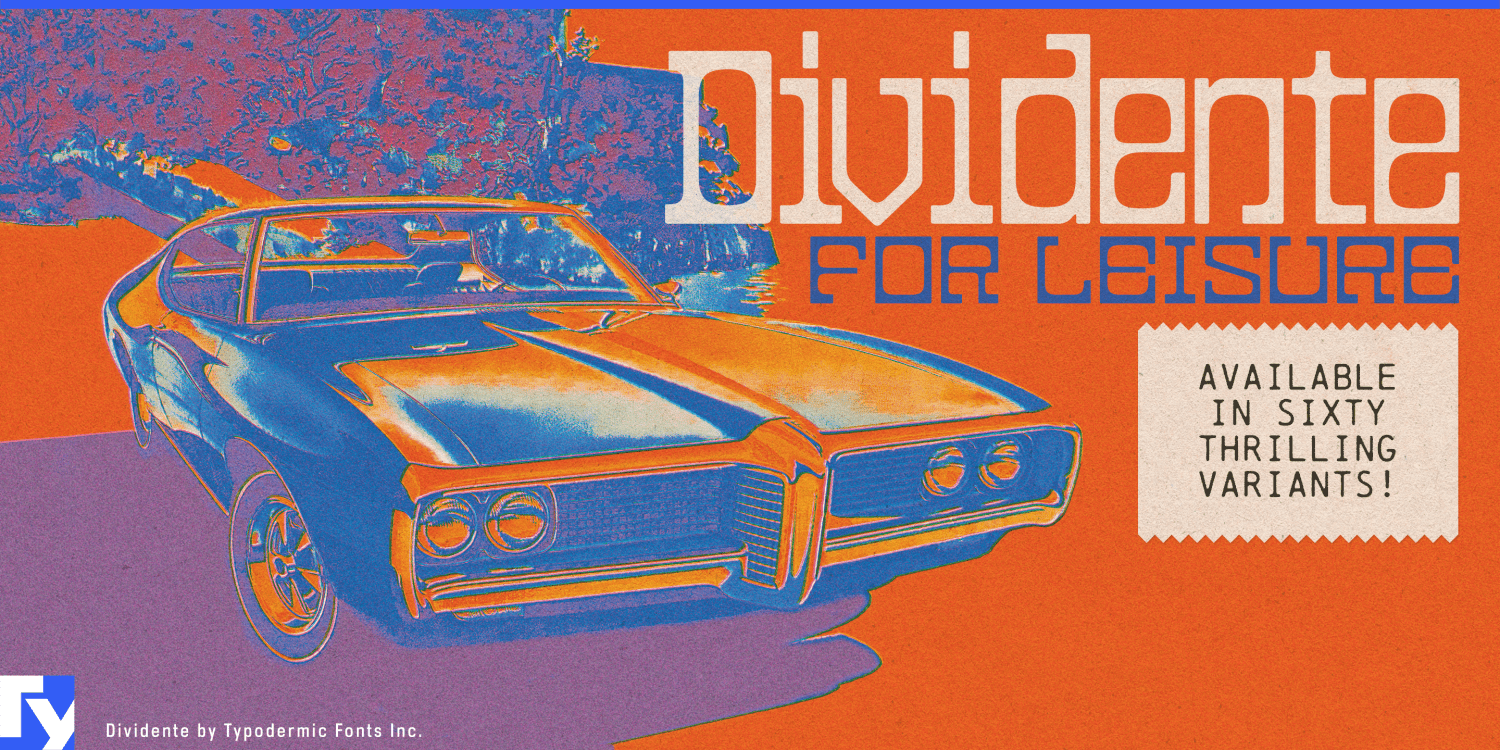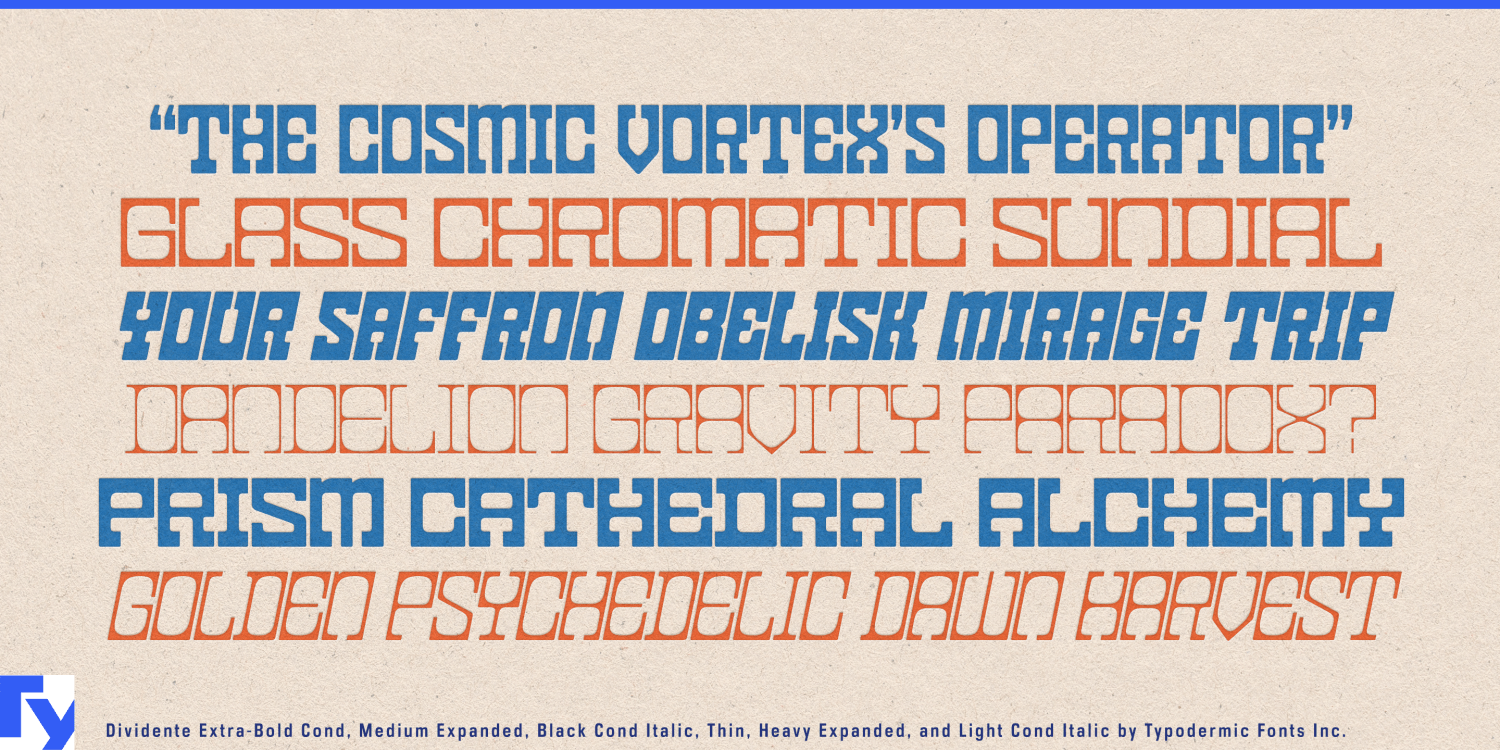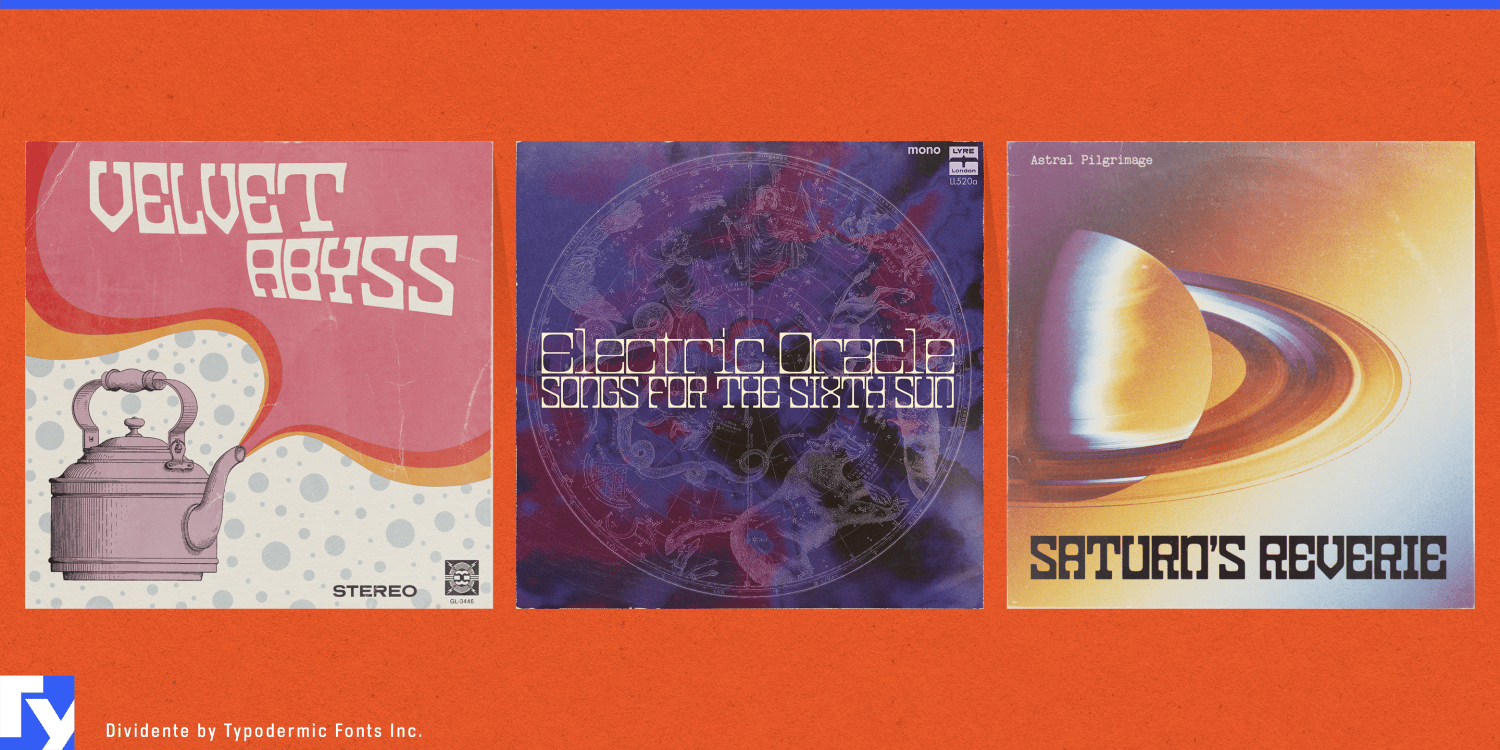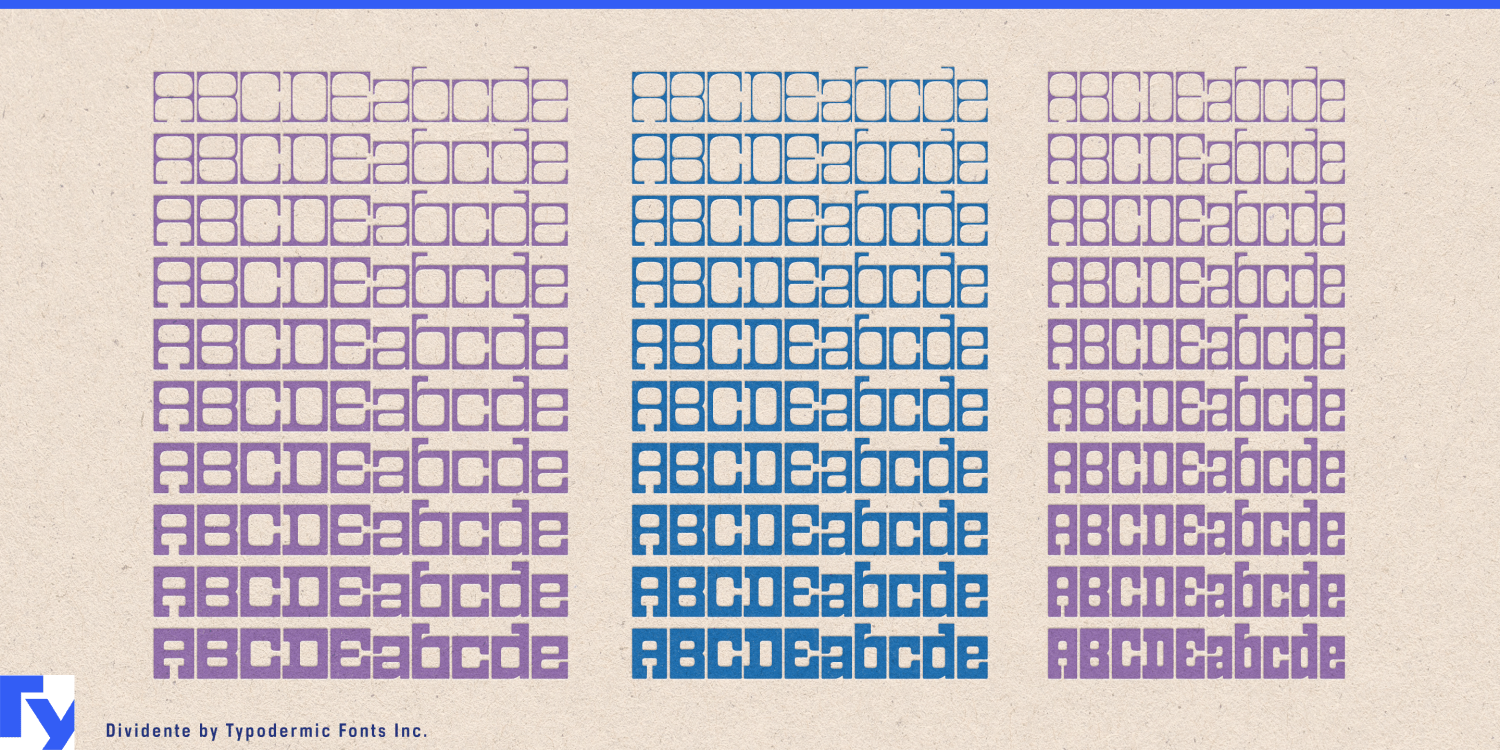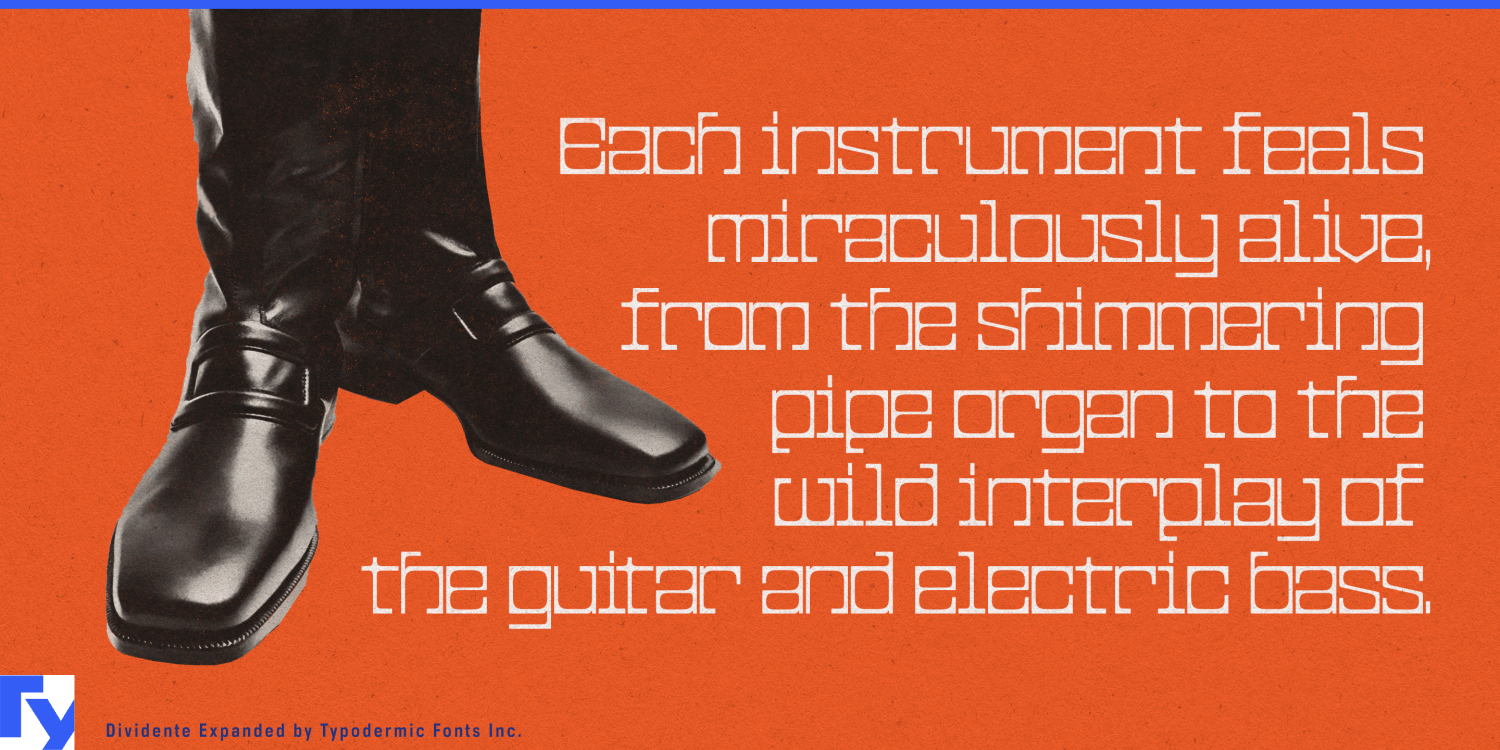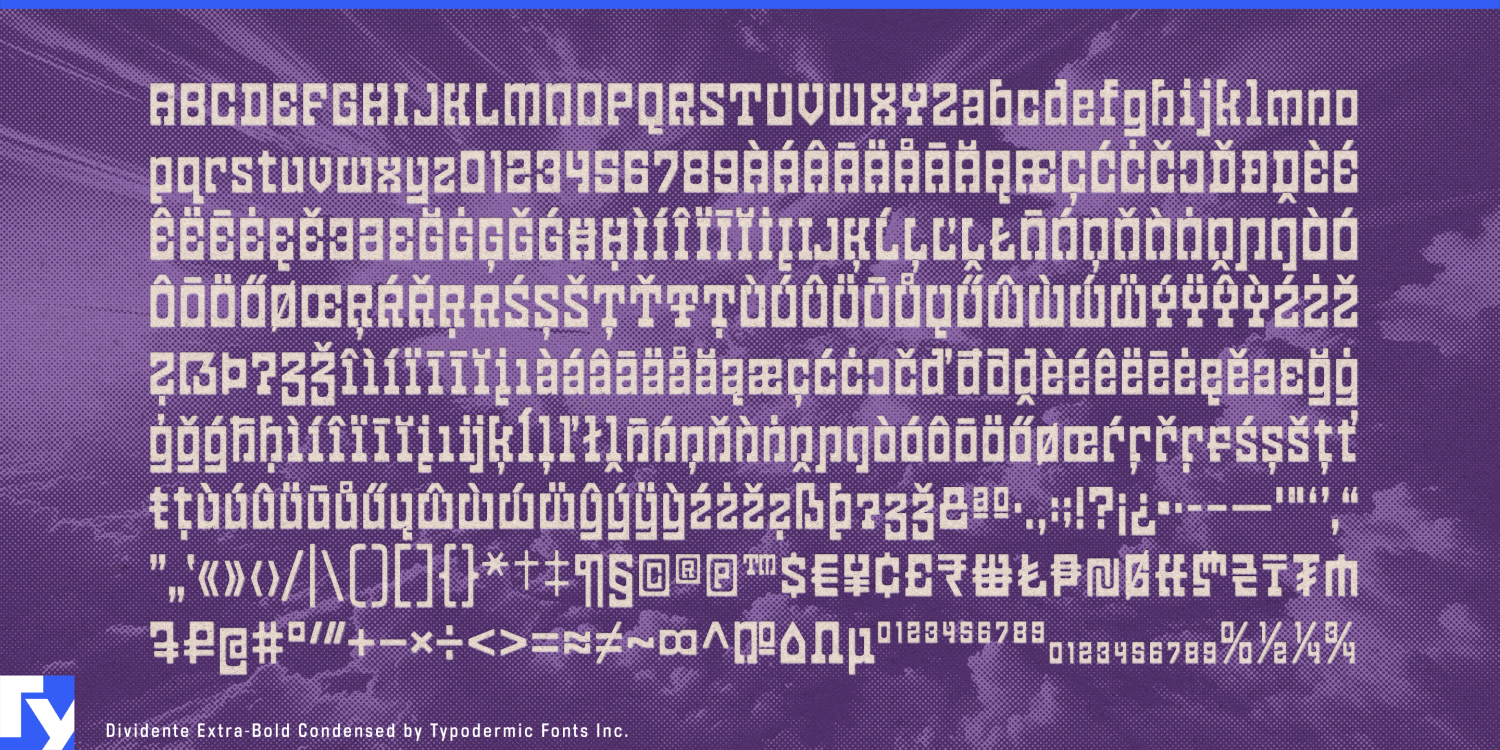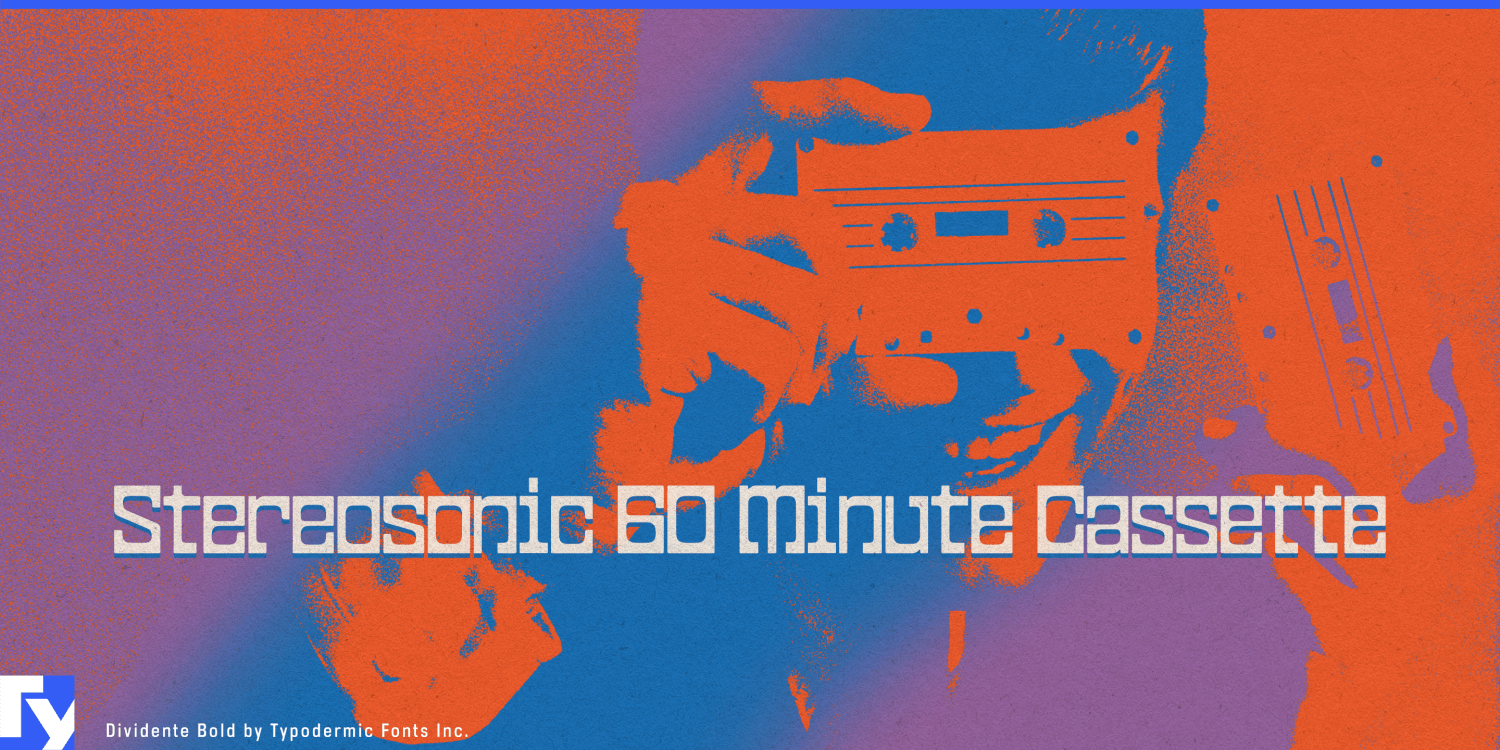
Dividente
Buy NowRetro character can be difficult to control. A dedicated 1960s or 1970s revival face may commit an entire identity to one period and one level of exuberance; a neutral geometric sans can remove the historical flavor altogether. Dividente gives designers somewhere in between. Its squared outer forms, soft interiors, tight rhythm, and broad range of weights and widths can shift from sleek retro-modernism to full psychedelic display without abandoning the same underlying vocabulary.
That makes Dividente particularly useful for retro-modern cafés, listening bars, and design-led hospitality. Espresso bars, coffee-and-record concepts, hotel cafés, modernist restaurants, and spaces built around chrome, smoked glass, saturated color, rounded upholstery, or postmodern furniture can dial the typography to match the room. Lighter styles can handle permanent identities, menu headings, window lettering, and architectural graphics; heavier and wider styles can take over for seasonal drinks, guest DJs, collaborations, merchandise, and promotional campaigns.
Hair salons and beauty studios offer another natural setting. Color studios, blow-dry bars, curl specialists, nail salons, and contemporary beauty collectives can use Dividente when minimalist luxury typography feels too restrained but cute or ornamental lettering would go too far. The family can move from airy salon names and wall lettering to dense campaign headlines, service promotions, product displays, and seasonal color launches.
Its heavier styles also suit bulky, sculptural footwear influenced by early-2000s design: thick skate-inspired sneakers, rounded platforms, exaggerated lifestyle trainers, clogs, and other shoes built around padded volume and molded geometry. Model names, shoeboxes, insoles, retail displays, launch campaigns, and seasonal capsules can shift from a technical fashion treatment to typography almost as substantial as the product itself.
Furniture and lighting occupy similar territory. Modular sofas, rounded lounge chairs, upholstered benches, sculptural lamps, low tables, and contemporary pieces influenced by late-1960s and 1970s interiors can use Dividente for collection names, catalogues, showroom graphics, design-fair booths, and product launches. Its combination of hard geometry and softened interiors echoes objects that are structured but padded, molded, or curved.
Dividente was designed with a psychedelic revival in mind, and that side remains available when a project wants to push further. Listening-bar events, summer café campaigns, experimental furniture launches, beauty collaborations, footwear drops, and cultural graphics can turn the heavier styles into dense, colorful display typography. Psychedelia is one setting rather than a requirement.
Dividente’s useful trick is its adjustable level of retro. It can whisper through a salon identity, settle into a modernist café, bulk up beside a sculptural sneaker or sofa, or turn the dial all the way toward psychedelic display.